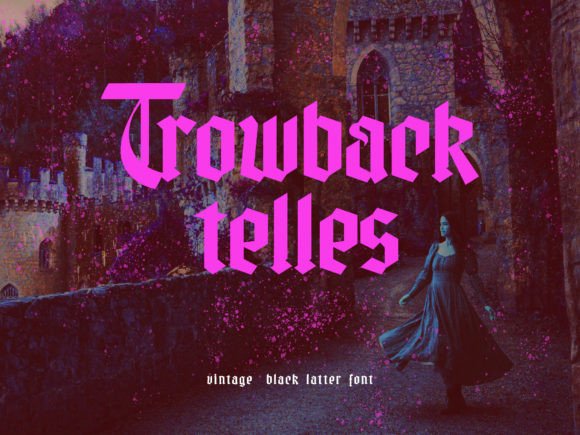
Unleash the Power of Expression with Trowbacktelles: The Bold and Edgy Blackletter Font
Dive into the world of captivating typography with Trowbacktelles, the striking blackletter font that exudes boldness and personality. Experience the thrill of creating designs that command attention and leave a lasting impression. With its sharp edges and distinctive letterforms, Trowbacktelles is the perfect choice for those seeking a font that oozes sophistication and intrigue.
Transport yourself to an era of timeless elegance with Trowbacktelles. Its vintage charm and modern twist create a harmonious blend of old-world aesthetics and contemporary flair. Whether you're crafting logos, designing posters, or creating eye-catching social media graphics, Trowbacktelles adds a touch of sophistication and intrigue that sets your work apart.
Step into the realm of limitless creativity with Trowbacktelles. Its versatility knows no bounds, allowing you to explore a wide range of design possibilities. From bold headlines that demand attention to intricate details that captivate the eye, Trowbacktelles empowers you to convey your message with impact and originality.
Indulge in the beauty of Trowbacktelles, a font carefully crafted by the skilled hands of artnivora.std. Each letterform is meticulously designed to evoke a sense of timelessness, ensuring that your creations stand the test of time. Its black metal aesthetic adds a touch of edginess, making it ideal for designs that seek to make a statement.
Unlock the full potential of your design projects with Trowbacktelles, the font that ignites imagination and empowers you to create designs that resonate with your audience. Dive into the world of captivating typography and elevate your creative vision to new heights. Embrace the power of Trowbacktelles today and let your designs speak volumes.